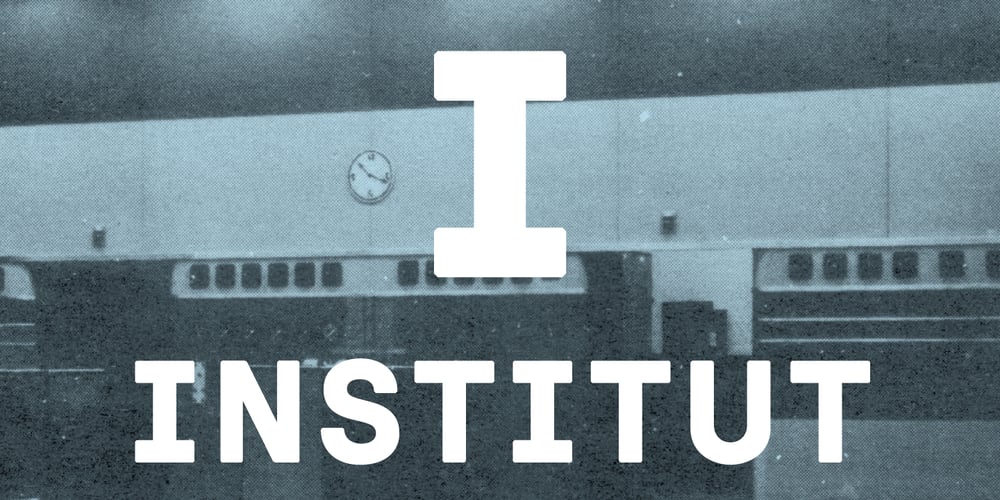
Institut
Institut font
Institut Font Family was designed by Gayaneh Bagdasaryan, Vyacheslav Kirilenko and published by Brownfox. Institut contains 1 styles and family package options. Institut is an industrial-strength display face, with a no-nonsense feel of a research lab and audacity of a space mission control. Based on assertive geometric forms, it is suitable for a variety of on-screen and print uses. Designed by Vyacheslav Kirilenko with participation of Gayaneh Bagdasaryan in 2013.